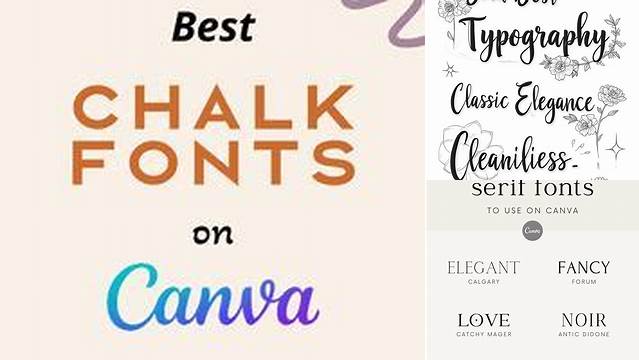
Best Canva Free Fonts: Typography Guide For Stunning Designs
Hey guys! Are you looking to level up your design game without breaking the bank? Well, you've come to the right place! In this article, we're diving deep into the world of Canva free fonts. Canva is a fantastic platform for creating all sorts of graphics, from social media posts to presentations, and one of its biggest strengths is the massive library of fonts it offers. But with so many options, it can be a little overwhelming. Don't worry, we're here to guide you through the best Canva free fonts to make your designs pop. We'll cover everything from classic fonts to modern ones, and even tips on how to pair them like a pro. So, let's get started and explore the amazing world of typography on Canva!
1. Understanding Canva's Font Library
Before we jump into specific fonts, let's get a handle on Canva's font library. Canva offers a huge selection of fonts, both free and premium. The free fonts are perfect for anyone just starting out or those who want to create professional-looking designs without spending extra money. Navigating this library can seem daunting, but it's actually quite user-friendly. You can filter fonts by style, language, and even by specific themes. Understanding how Canva organizes its fonts will save you time and help you find the perfect typeface for your project. Plus, knowing the difference between the free and premium options ensures you stay within your budget while still achieving a top-notch design. We'll also touch on how to upload your own fonts if you have a specific one in mind that's not already in Canva's library.
2. Top 10 Classic Canva Free Fonts
Let's kick things off with the classics! These are the workhorse fonts that have stood the test of time and are versatile enough for almost any project. Think of fonts like Open Sans, Lato, and Roboto. These are clean, legible, and professional-looking, making them ideal for body text, headlines, and everything in between. We'll break down why each of these fonts is a great choice, showcasing examples of how they can be used effectively in various designs. We'll also discuss the subtle differences between them and when one might be a better choice than another. For instance, Lato is slightly more rounded and friendly, while Roboto has a more geometric feel. Knowing these nuances can help you make informed decisions and elevate your designs.
3. Modern and Trendy Free Fonts on Canva
Now, let's dive into the world of modern fonts. These typefaces are perfect for giving your designs a contemporary and stylish edge. Think sleek sans-serifs, bold display fonts, and everything in between. We'll explore some of the trendiest Canva free fonts that are making waves in the design world right now. Fonts like Montserrat and Raleway offer a clean, modern aesthetic that's perfect for websites, logos, and social media graphics. We'll also look at some more unique and experimental options that can help your designs stand out from the crowd. Remember, modern fonts are all about making a statement, so don't be afraid to play around and experiment with different styles to find the perfect fit for your project.
4. Best Canva Free Fonts for Headlines
Headlines are the first thing people see, so you want to make sure they grab attention! Choosing the right font for your headlines is crucial for conveying the right message and creating visual impact. We'll explore some of the best Canva free fonts specifically designed for headlines, focusing on bold, eye-catching typefaces that command attention. Think fonts like Bebas Neue, Oswald, and Impact. These fonts are designed to be big, bold, and impossible to ignore. We'll also discuss some tips for using headline fonts effectively, such as choosing a font that complements your body text and ensuring your headline is legible and easy to read at a glance.
5. Top Canva Free Fonts for Body Text
While headlines grab attention, body text is where you communicate your message. Legibility is key when choosing a font for body text, so you need something that's easy on the eyes and comfortable to read for extended periods. We'll explore some of the best Canva free fonts for body text, focusing on clean, simple sans-serifs and classic serif fonts that are perfect for paragraphs and longer blocks of text. Fonts like Open Sans, Lato, and Roboto are excellent choices for body text, as they're designed for readability and won't distract from your message. We'll also discuss the importance of font size, line height, and letter spacing in creating a comfortable reading experience.
6. Pairing Fonts Like a Pro: Canva Free Font Combinations
Choosing the right fonts is important, but pairing them effectively is where the magic happens. A great font combination can elevate your design and create a cohesive visual identity. We'll explore some tried-and-true Canva free font combinations that work well together, such as pairing a bold headline font with a clean, legible body text font. We'll also discuss the principles of font pairing, such as contrast, hierarchy, and visual harmony. For example, pairing a serif font with a sans-serif font can create a visually interesting contrast, while using different weights and sizes of the same font family can establish a clear hierarchy in your design.
7. Serif vs. Sans-Serif: Choosing the Right Style
Serif and sans-serif fonts are the two main categories of typefaces, and understanding the difference between them is crucial for choosing the right font for your project. Serif fonts have small decorative strokes (serifs) at the ends of the letters, while sans-serif fonts don't. Serif fonts are often perceived as more traditional and elegant, while sans-serif fonts tend to be more modern and clean. We'll discuss the characteristics of each style and when it's best to use one over the other. For example, serif fonts are often a good choice for body text in printed materials, while sans-serif fonts are often preferred for websites and digital displays.
8. Script and Handwritten Canva Free Fonts
For a touch of personality and flair, script and handwritten fonts are a great option. These fonts mimic the look of handwriting and can add a personal touch to your designs. However, it's important to use them sparingly, as they can be difficult to read in large blocks of text. We'll explore some of the best script and handwritten Canva free fonts, and discuss when and how to use them effectively. These fonts are often best used for headings, logos, and other design elements where a touch of personality is desired. Just remember to prioritize legibility and avoid using them for long paragraphs of text.
9. Display Fonts: Making a Statement with Typography
Display fonts are designed to grab attention and make a statement. These fonts are often bold, unique, and highly stylized, making them perfect for headlines, logos, and other design elements where you want to create a strong visual impact. We'll explore some of the most eye-catching Canva free fonts in the display category and discuss how to use them effectively. Remember, display fonts are all about making a statement, so don't be afraid to experiment and push the boundaries of typography. However, it's also important to ensure your display fonts are legible and consistent with the overall design aesthetic.
10. Monospace Fonts: When and How to Use Them
Monospace fonts are a unique category of typefaces where each letter and character occupies the same amount of horizontal space. This gives them a distinctive, typewriter-like appearance that can be both stylish and functional. We'll explore the uses of Canva free fonts in the monospace category and discuss when and how to use them effectively. Monospace fonts are often used for coding, technical documentation, and other applications where precise alignment is important. They can also be used for design elements where you want to create a retro or techy vibe.
11. Best Canva Free Fonts for Logos
Your logo is the face of your brand, so choosing the right font is crucial. The font you use in your logo can convey a lot about your brand's personality and values. We'll explore some of the best Canva free fonts for logos, focusing on typefaces that are both visually appealing and versatile enough to work in various contexts. A good logo font should be legible, memorable, and consistent with your brand's overall aesthetic. We'll also discuss some tips for using fonts in logo design, such as considering the font's weight, style, and how it pairs with other design elements.
12. Creating Social Media Graphics with Canva Free Fonts
Social media is a visual medium, so your graphics need to be eye-catching and engaging. Choosing the right fonts for your social media graphics is essential for capturing attention and conveying your message effectively. We'll explore some of the best Canva free fonts for social media, focusing on typefaces that are legible, visually appealing, and optimized for digital displays. We'll also discuss some tips for using fonts in social media graphics, such as using a consistent font palette, optimizing font sizes for different platforms, and ensuring your text is easy to read on small screens.
13. Canva Free Fonts for Presentations
A well-designed presentation can make all the difference in how your message is received. The fonts you use in your presentation can impact the readability and overall visual appeal of your slides. We'll explore some of the best Canva free fonts for presentations, focusing on typefaces that are clean, legible, and professional-looking. A good presentation font should be easy to read from a distance, and it should also complement the overall design aesthetic of your slides. We'll also discuss some tips for using fonts in presentations, such as limiting the number of fonts you use, using consistent font sizes and styles, and ensuring your text has enough contrast with the background.
14. Designing Invitations with Canva Free Fonts
Creating beautiful invitations is easy with Canva, and choosing the right fonts can add a touch of elegance and personality to your designs. We'll explore some of the best Canva free fonts for invitations, focusing on typefaces that are stylish, elegant, and appropriate for the occasion. Whether you're designing wedding invitations, birthday party invites, or other special event announcements, the right font can set the tone and create a lasting impression. We'll also discuss some tips for using fonts in invitation design, such as choosing a font that reflects the event's theme, using a legible font for important details, and ensuring your text is well-spaced and visually appealing.
15. Best Canva Free Fonts for Posters and Flyers
Posters and flyers are designed to grab attention, so choosing the right fonts is crucial for making your message stand out. We'll explore some of the best Canva free fonts for posters and flyers, focusing on typefaces that are bold, eye-catching, and easy to read from a distance. A good poster font should be legible, impactful, and consistent with the overall design aesthetic. We'll also discuss some tips for using fonts in poster and flyer design, such as using a limited number of fonts, creating a clear visual hierarchy, and ensuring your text is large enough to be seen from a distance.
16. Canva Free Fonts for Ebooks and Documents
When designing ebooks and documents, readability is key. Choosing the right fonts can make a big difference in how enjoyable and engaging your content is to read. We'll explore some of the best Canva free fonts for ebooks and documents, focusing on typefaces that are clean, legible, and optimized for long blocks of text. A good font for ebooks and documents should be easy on the eyes, and it should also complement the overall design aesthetic. We'll also discuss some tips for using fonts in ebooks and documents, such as using a consistent font palette, optimizing font sizes and line heights, and ensuring your text is well-spaced and visually appealing.
17. Retro and Vintage Canva Free Fonts
For a touch of nostalgia and old-school charm, retro and vintage fonts are a great choice. These fonts evoke the styles of past eras and can add a unique character to your designs. We'll explore some of the best retro and vintage Canva free fonts, and discuss when and how to use them effectively. These fonts are often used for logos, posters, and other design elements where you want to create a vintage vibe. Just remember to use them sparingly and ensure they're consistent with the overall design aesthetic.
18. Calligraphy and Brush Script Canva Free Fonts
Calligraphy and brush script fonts add a touch of elegance and artistry to your designs. These fonts mimic the look of hand lettering and can create a personal, handcrafted feel. We'll explore some of the best calligraphy and brush script Canva free fonts, and discuss when and how to use them effectively. These fonts are often used for invitations, greeting cards, and other design elements where you want to convey a sense of sophistication and artistry. However, it's important to use them sparingly, as they can be difficult to read in large blocks of text.
19. Geometric Canva Free Fonts
Geometric fonts are characterized by their clean, geometric shapes and minimalist design. These fonts are often modern and contemporary, making them a great choice for designs that need a sleek and sophisticated look. We'll explore some of the best geometric Canva free fonts, and discuss when and how to use them effectively. Geometric fonts are often used for logos, websites, and other design elements where you want to create a sense of clarity and precision.
20. Choosing Fonts for Different Industries
The industry you're designing for can influence the fonts you choose. For example, a tech company might opt for a modern sans-serif font, while a luxury brand might prefer an elegant serif font. We'll discuss how to choose fonts that are appropriate for different industries, and provide examples of Canva free fonts that work well in various contexts. Considering your target audience and the message you want to convey can help you make the right font choices for your industry.
21. Font Psychology: How Fonts Affect Your Message
Fonts have the power to evoke emotions and convey subtle messages. Understanding font psychology can help you choose typefaces that align with your brand's personality and the message you want to communicate. We'll explore how different font styles can impact your message, and discuss how to use Canva free fonts to create the desired emotional response. For example, a bold, heavy font might convey strength and confidence, while a light, airy font might evoke a sense of delicacy and elegance.
22. Font Licensing: Understanding the Rules
When using fonts, it's important to understand the licensing terms. Some fonts are free for personal use but require a commercial license for business purposes. We'll discuss font licensing basics and how to ensure you're using Canva free fonts legally. Canva's free fonts typically come with a commercial license, but it's always a good idea to double-check the terms to avoid any potential issues.
23. Uploading Your Own Fonts to Canva
If you have a specific font in mind that's not available in Canva's library, you can upload your own fonts. This gives you even more flexibility and control over your designs. We'll provide a step-by-step guide on how to upload your own fonts to Canva, and discuss the file formats that are supported. This is a great option for branding consistency if you have specific fonts you use for your business.
24. Font Size and Spacing: Optimizing Readability
Font size and spacing play a crucial role in readability. Using the right font size and adjusting the spacing between letters and lines can make your text easier to read and more visually appealing. We'll discuss best practices for font size and spacing, and how to optimize these settings in Canva. This includes adjusting line height (leading), letter spacing (tracking), and word spacing to create a comfortable reading experience.
25. Using Canva Font Filters Effectively
Canva's font library has a variety of filters that can help you narrow down your choices and find the perfect font for your project. We'll explore how to use Canva's font filters effectively, such as filtering by style, language, and theme. This can save you time and effort when searching for specific types of fonts, making the design process more efficient.
26. Kerning and Tracking: Fine-Tuning Your Typography
Kerning and tracking are advanced typographic techniques that involve adjusting the spacing between individual letters (kerning) and the overall spacing between characters in a block of text (tracking). We'll discuss how kerning and tracking can improve the visual appeal of your typography, and how to adjust these settings in Canva. Fine-tuning these details can make a significant difference in the overall polish and professionalism of your designs.
27. Font Weights and Styles: Creating Visual Hierarchy
Font weights and styles (e.g., bold, italic, regular) can be used to create visual hierarchy in your designs. Using different weights and styles can help you emphasize important elements and guide the reader's eye through your content. We'll discuss how to use font weights and styles effectively, and provide examples of how to create a clear visual hierarchy using Canva free fonts. This is a key element in creating well-structured and visually engaging designs.
28. Best Practices for Font Accessibility
Font accessibility is an important consideration for ensuring your designs are inclusive and readable for everyone. We'll discuss best practices for font accessibility, such as choosing legible fonts, using sufficient contrast, and avoiding overly decorative typefaces. Making your designs accessible ensures that everyone can access and understand your message.
29. Staying Updated on Font Trends
Font trends are constantly evolving, so it's important to stay updated on the latest styles and typefaces. We'll discuss how to stay updated on font trends and where to find inspiration for your typography choices. Following design blogs, social media accounts, and industry publications can help you stay in the loop and incorporate current trends into your designs.
30. Troubleshooting Common Font Issues in Canva
Sometimes, you might encounter issues with fonts in Canva, such as fonts not displaying correctly or text appearing distorted. We'll provide troubleshooting tips for common font issues in Canva, and discuss how to resolve these problems quickly and easily. Knowing how to address these issues will save you time and frustration when working on your designs.
So there you have it, guys! A comprehensive guide to Canva free fonts to help you create stunning designs. Remember, typography is a powerful tool, and choosing the right fonts can make a huge difference in how your message is received. With the vast library of Canva free fonts at your disposal, you can experiment, create, and unleash your creativity without spending a dime. Happy designing!